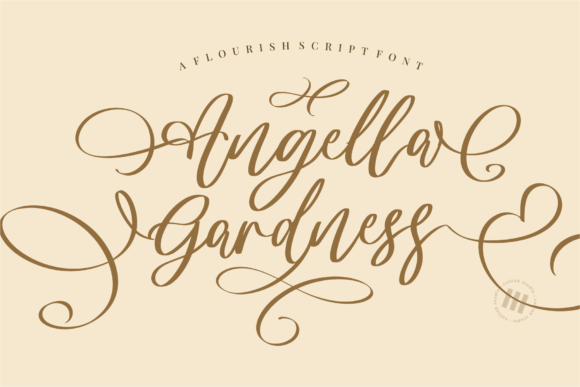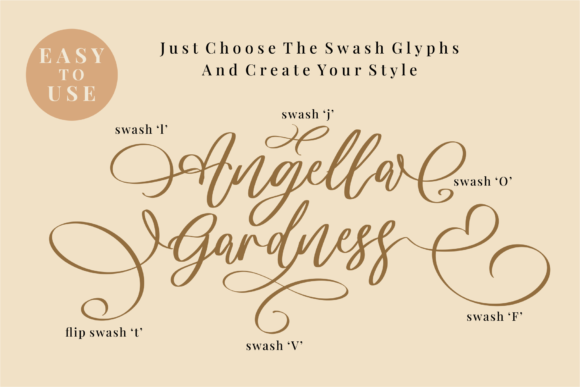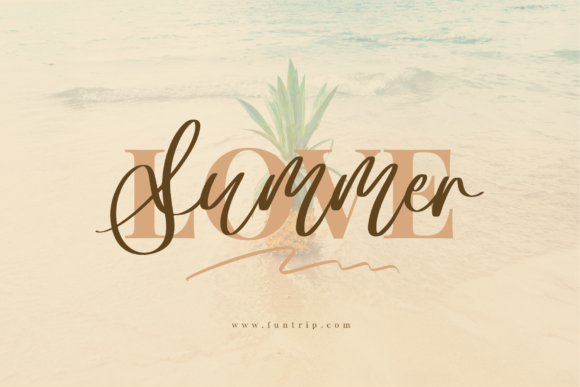
Angella Gardness Font
Angella Gardness feels incredibly elegant and flowing. It looks stunning on wedding invitations, thank you cards, quotes, greeting cards, logos, business cards and every other design which needs a handwritten touch. It features a varying baseline, smooth lines, gorgeous glyphs and stunning alternates.